One more sign from Montreal and then I’ll get back to focusing on Toronto. This is one you’ll see while walking along St. Laurent in the Plateau area.
It’s a business that makes gravestones—signs when you think about it, the most permanent kind.
The sign is in French and Hebrew and I’m assuming the Hebrew text also says “monuments”. The work “fils” seems to be patched on and I wonder if there’s a different word underneath. Maybe it’s just a repair.
I’m struck by the positioning. A gravestone pulls your gaze earthwards, but this sign lifts your gaze to the sky.
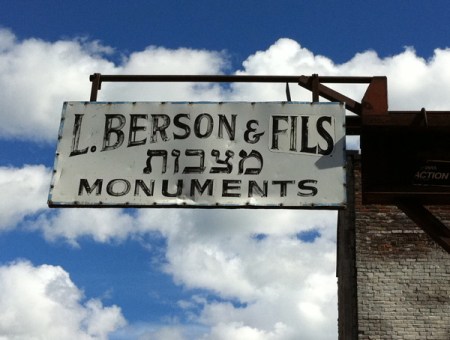
looks like a gateway to the heaven…
One of my favourite signs in Montreal is the Archambault sign at the corner of St. Catherine and St. Denis. It runs down the side of the building and it looks amazing during a heavy snowfall because its red neon makes all the snowflakes nearby turn pink. It’s something I would love to capture for this blog. Look for it if you’re visiting again in winter!